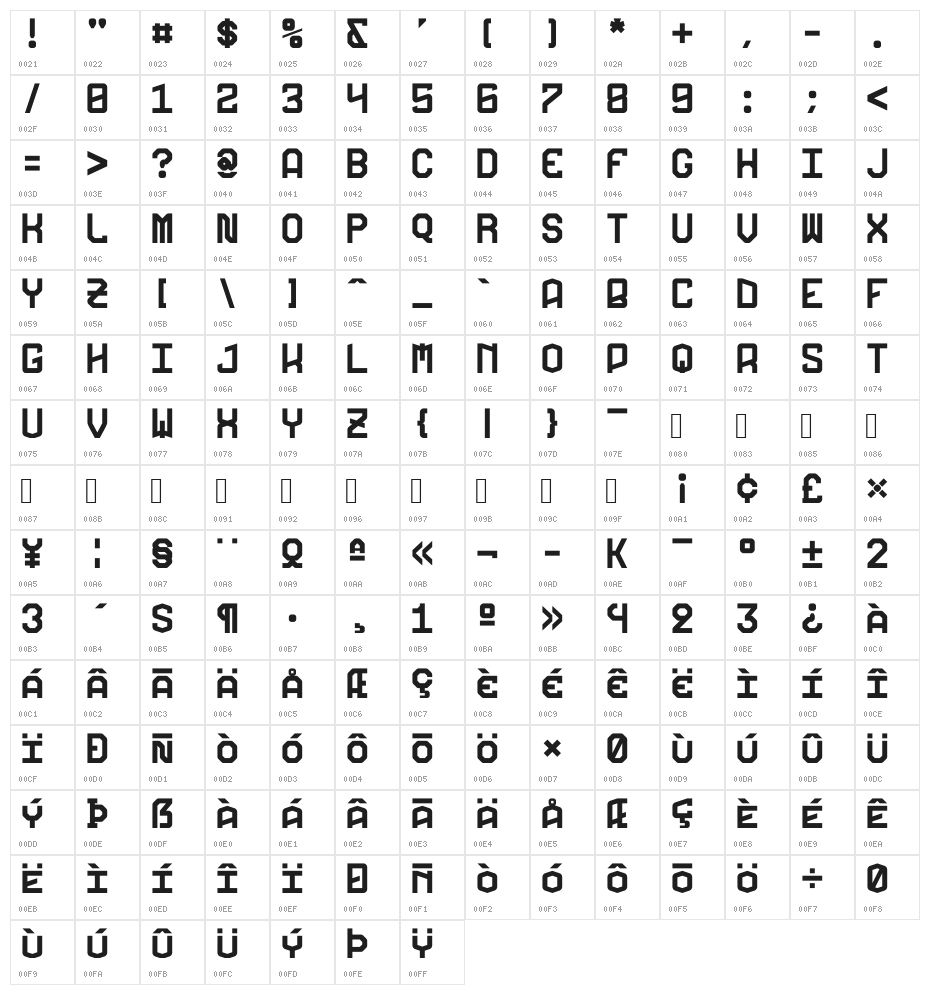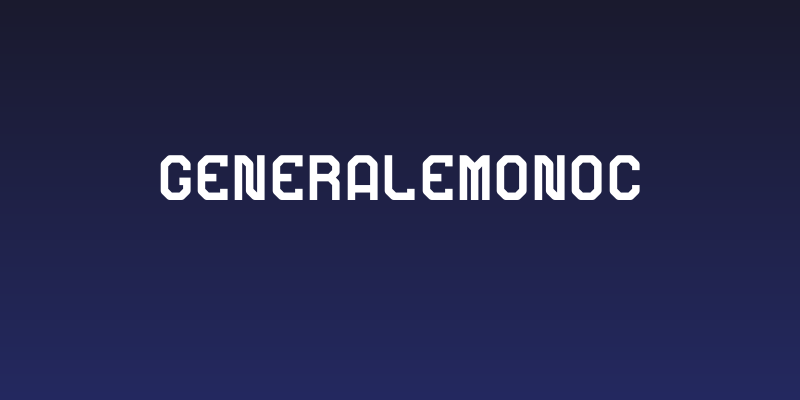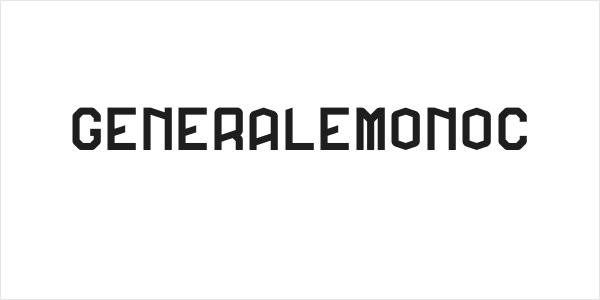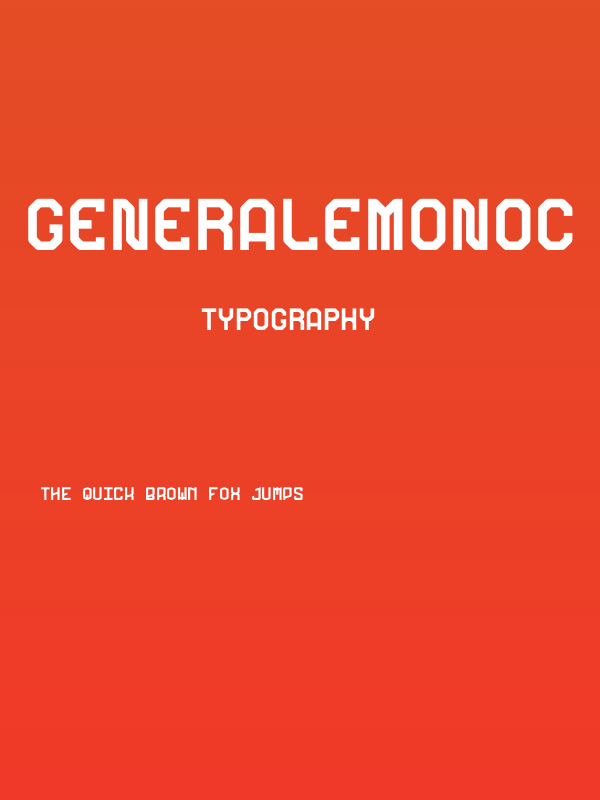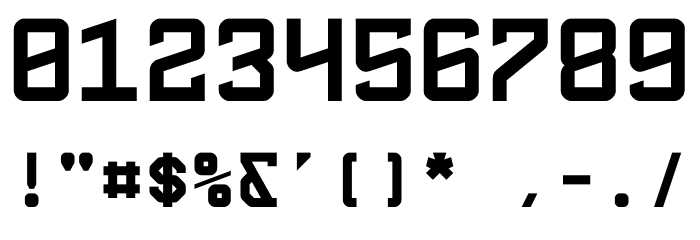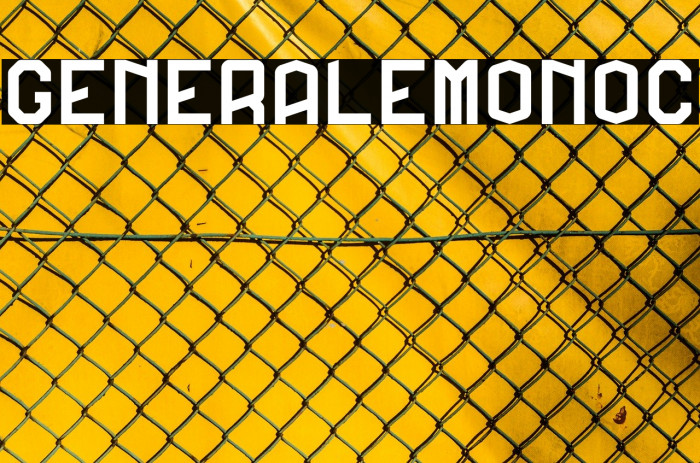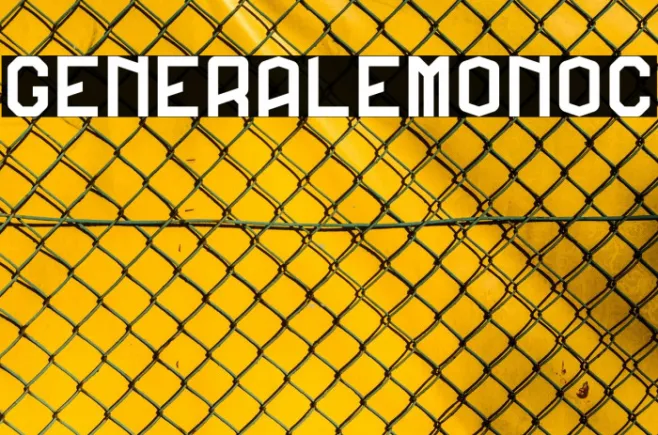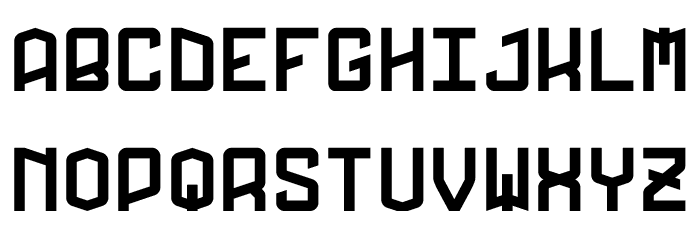
GeneraleMonoC Font
GeneraleMonoC Description
This font features a bold, geometric design with a strong, industrial feel. The characters are constructed with thick, uniform strokes, giving them a robust and sturdy appearance. The angular shapes and straight lines create a sense of precision and modernity. The uppercase and lowercase letters maintain a consistent height, contributing to a monospaced look. The numerals and special characters follow the same design principles, ensuring uniformity across all glyphs. This font's distinct style makes it ideal for projects that require a bold, impactful visual statement.